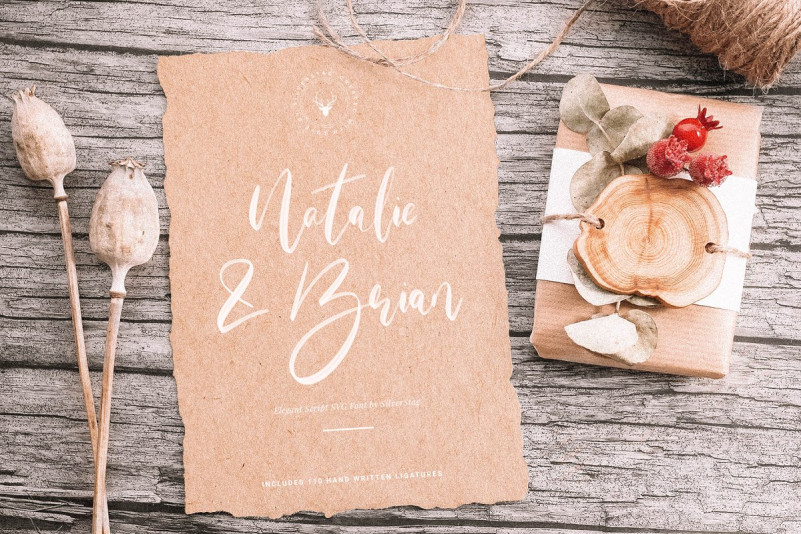
Maria Rose SVG Script Font
A new rose elegant script svg font. Designed to be versatile, can take center stage or be used to beautifully complement your favorite sans and serif fonts. Presenting Maria Rose SVG Script Font. Maria Rose is an elegant SVG Font that has a true hand drawn look and feel. This is an elegant SVG script font that comes in a realistic hand-lettered watercolour look It’s the perfect fit for all feminine logo projects, printed quotes, lovely wedding invitation cards, social media headers, product packaging and a lot more!